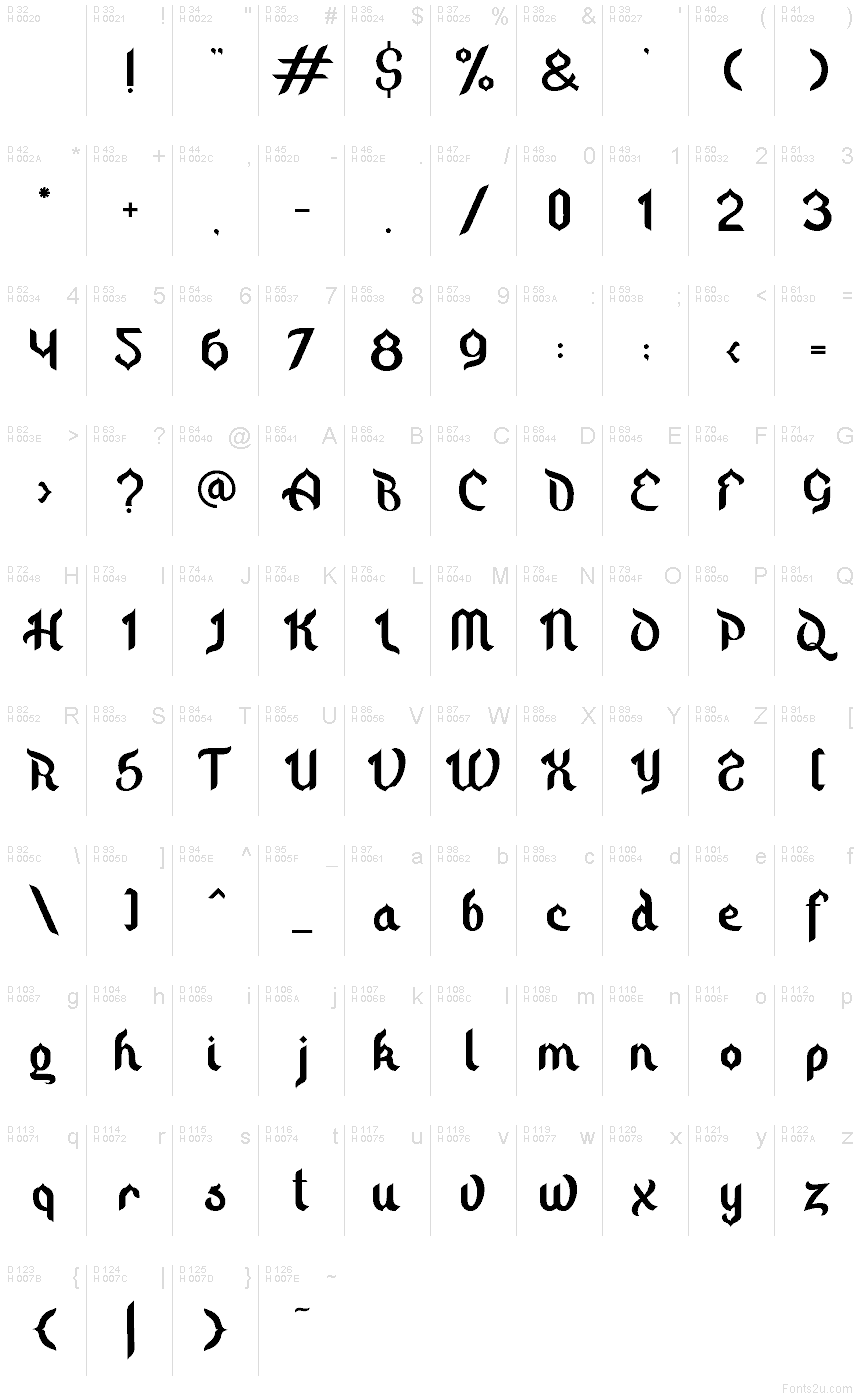
Huraira
Huraira font by PutraCetol Studio is a free bold Arabic-style display font. It stands out with Latin letterforms shaped by Arabic calligraphic rhythm: tall, tapered stems, inky wedge serifs, and a diamond-like dot that snaps the title with a subtle sparkle. The strokes feel carved and slightly gritty, with tight counters that create a confident, ceremonial cadence at large sizes.
Using Huraira, headlines gain cultural warmth without losing clarity. This free font shines on Ramadan promos, Middle Eastern restaurant logos, spice packaging, festival posters, travel editorials, and YouTube thumbnails. Set it big with a touch of letterspacing; pair with a clean geometric sans for menus and captions to keep the message crisp.